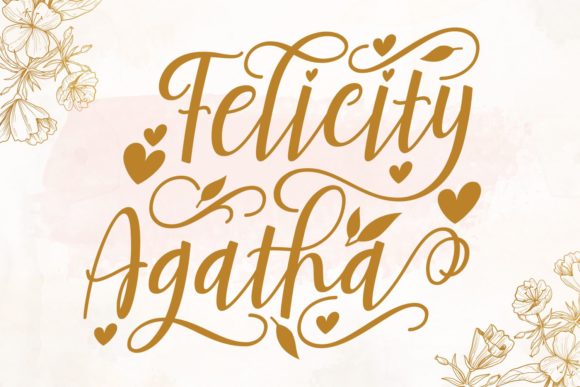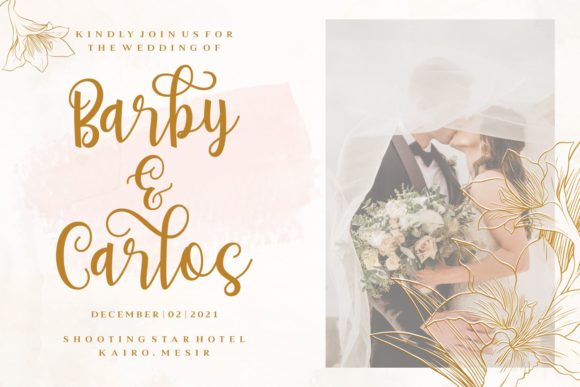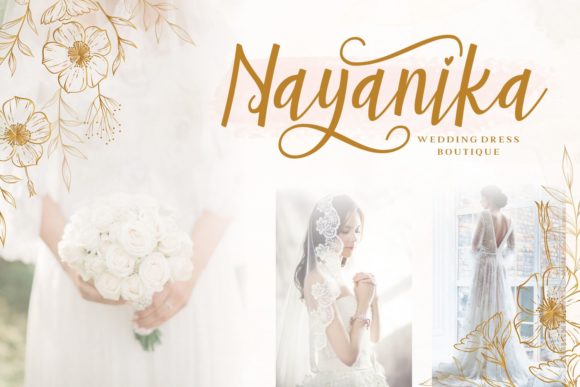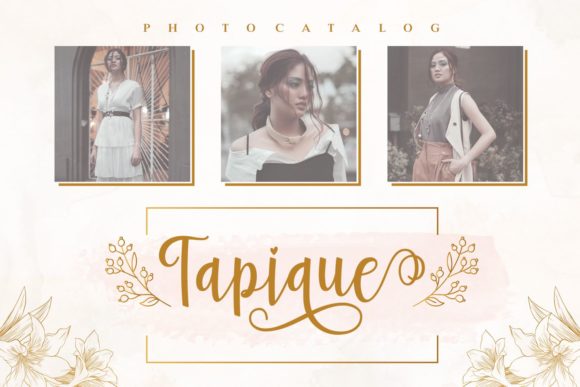
Felicity Agatha Font
About Felicity Agatha Font
Felicity Agatha is a unique and elegant handwritten font. It looks beautiful on a variety of designs requiring a personalized style, such as wedding invitations, thank you cards, weddings, greeting cards, logos and so on.